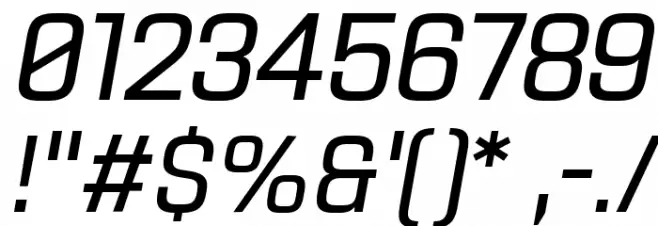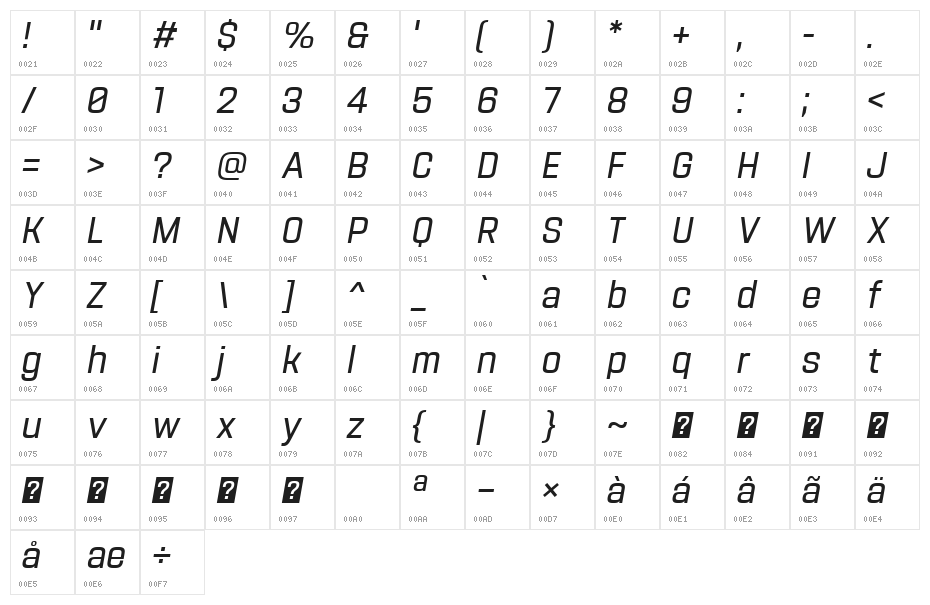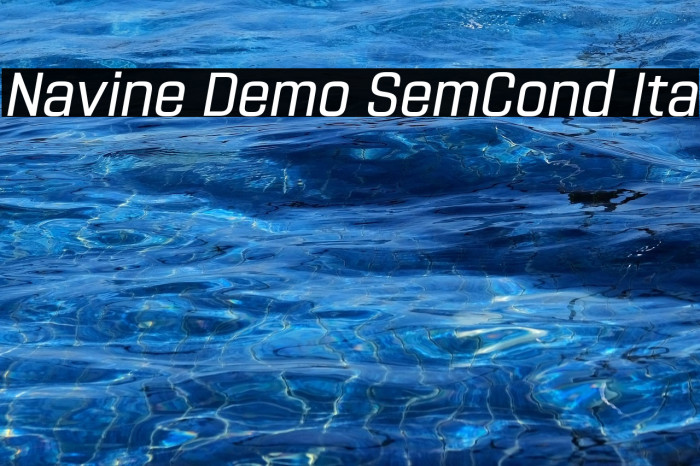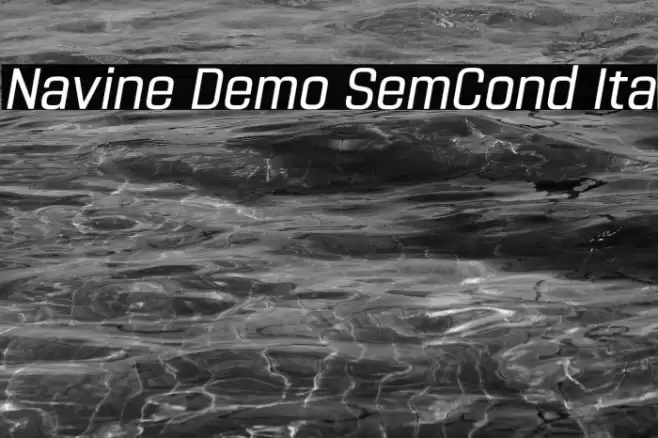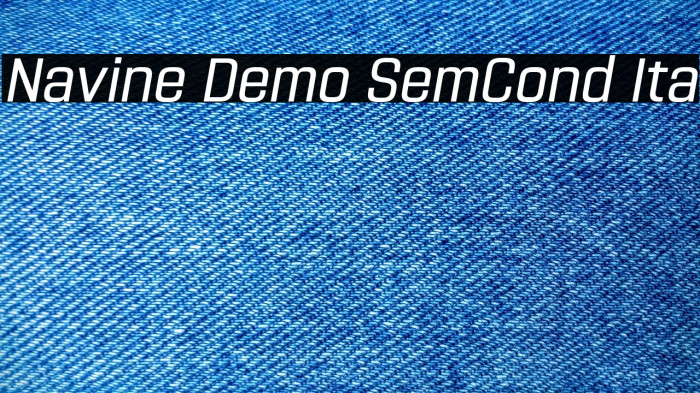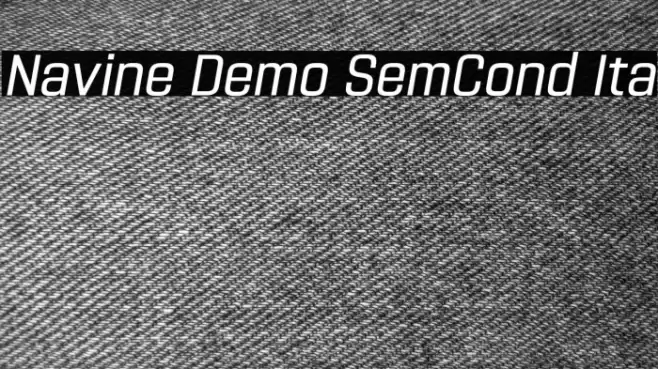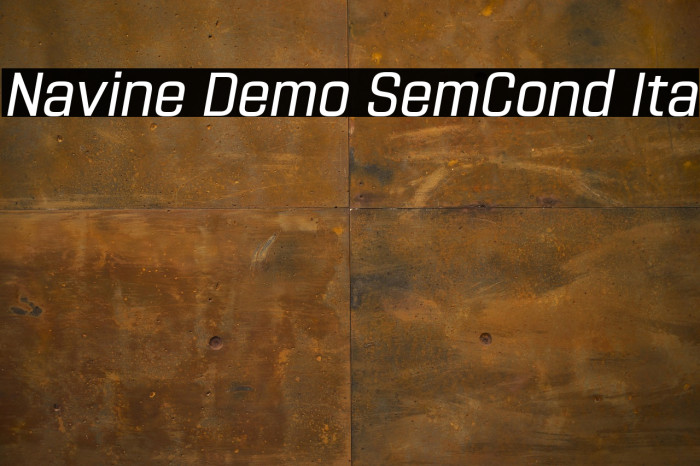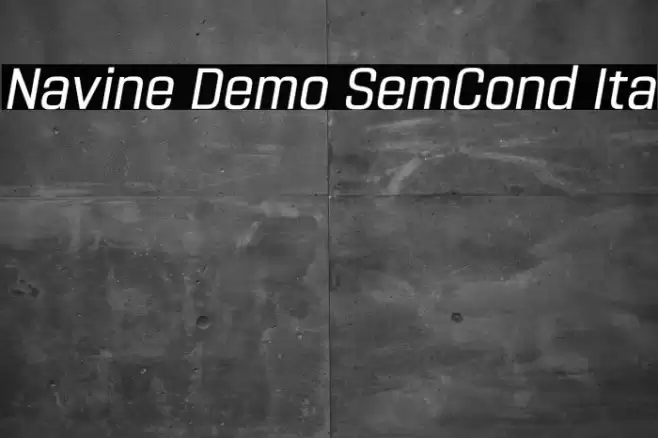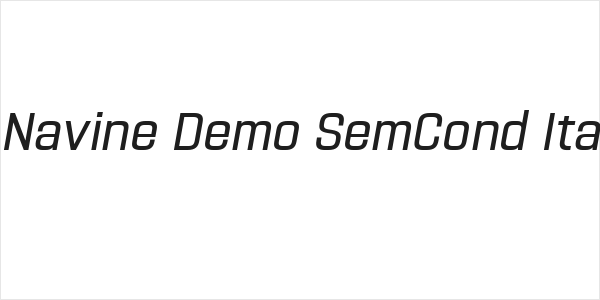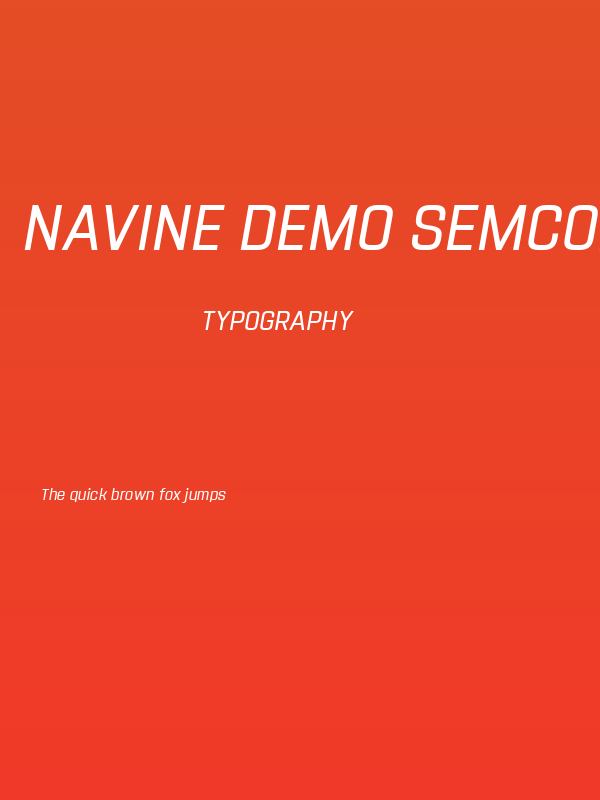
Navine Demo SemCond Ita Font
Navine Demo SemCond Ita Description
This font features a sleek and modern design with a semi-condensed width, giving it a streamlined appearance. The italic style adds a dynamic and forward-leaning character to the text, making it ideal for projects that require a sense of motion or progress. The characters are well-defined with a medium contrast in stroke thickness, providing clarity and readability. The spacing between characters is normal, ensuring that the text remains legible even at smaller sizes. This font's contemporary style makes it suitable for a variety of digital and print applications.
| Proposed Projects | Ideal for branding, advertising, digital interfaces, and editorial design. |